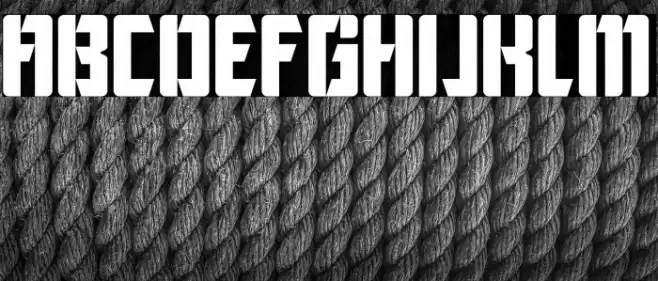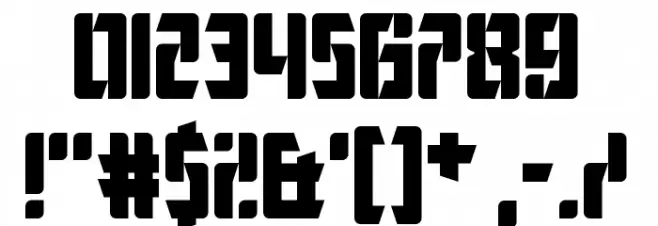
League of Extraordinary Justice Font
League of Extraordinary Justice Description
This font features a bold, geometric style with sharp angles and a blocky appearance. The characters are uniformly wide, creating a strong and impactful visual presence. The uppercase and lowercase letters share a similar structure, emphasizing uniformity and consistency. The numbers and special characters maintain the same bold and angular design, ensuring cohesion across all elements. This font's distinct style makes it stand out, with a modern and edgy feel that captures attention.
- Proposed Projects: Ideal for use in posters, logos, and branding materials where a strong, modern aesthetic is desired.